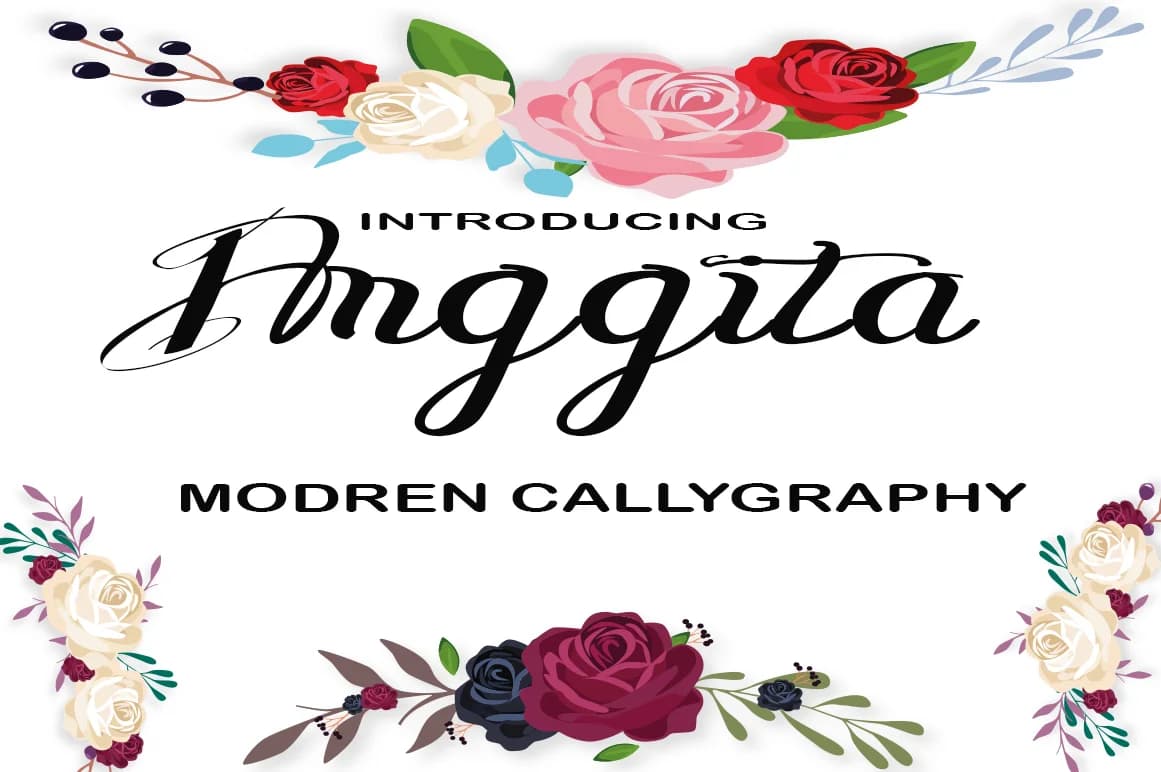
Anggita by AsaharStudio is a flowing handwritten script that captures the organic charm of pen-to-paper lettering. With its graceful letterforms and natural stroke variations, this font brings an authentic, personal touch to digital designs. The distinctive character of handwritten scripts like Anggita makes it ideal for projects where warmth and individuality matter most. This versatile script works beautifully for wedding invitation suites that need a personal, intimate feel beyond standard typography. It's equally suited to branding for boutique cosmetics or artisanal product packaging that emphasizes handcrafted authenticity. DIY greeting card designs benefit from its approachable elegance, while custom event signage gains character and visual interest from its flowing letterforms. Social media graphics and blog post headers also showcase this font's ability to stand out while remaining highly legible. The font delivers the handwritten quality that contemporary design clients increasingly request, that balance between polish and personality that mass-produced typefaces can't quite achieve. Whether you're creating personalized stationery, designing package inserts for small businesses, or developing branded content that needs to feel human-made rather than algorithmic, Anggita provides the stylistic foundation. Explore Anggita on Creative Fabrica and start bringing this authentic handwritten aesthetic to your next project.
Anggita Font is a script font that shines as a display or heading face. Pair it with a clean sans-serif or serif font for body text β the contrast creates a clear hierarchy while the two styles stay balanced and easy to read.
Anggita Font